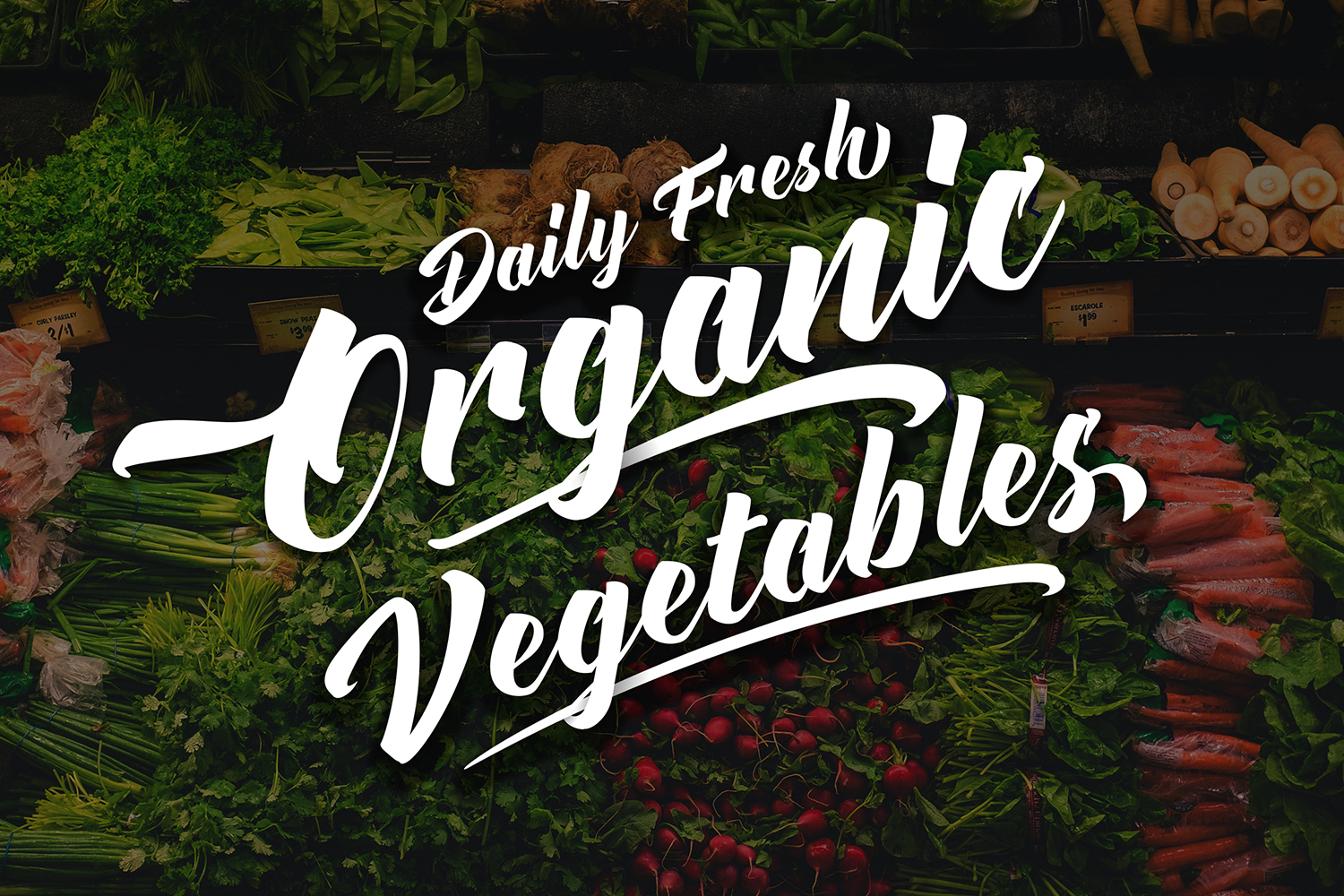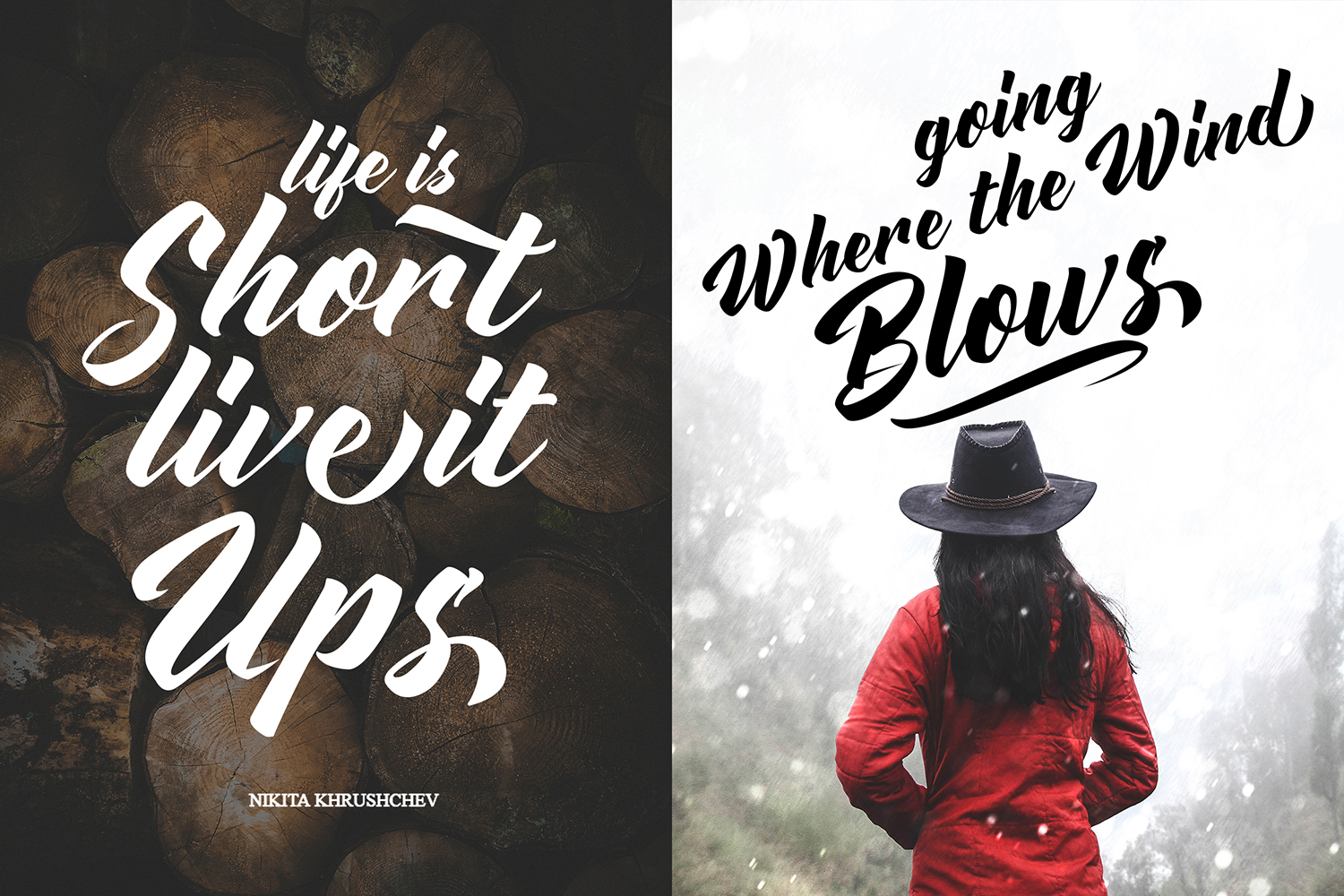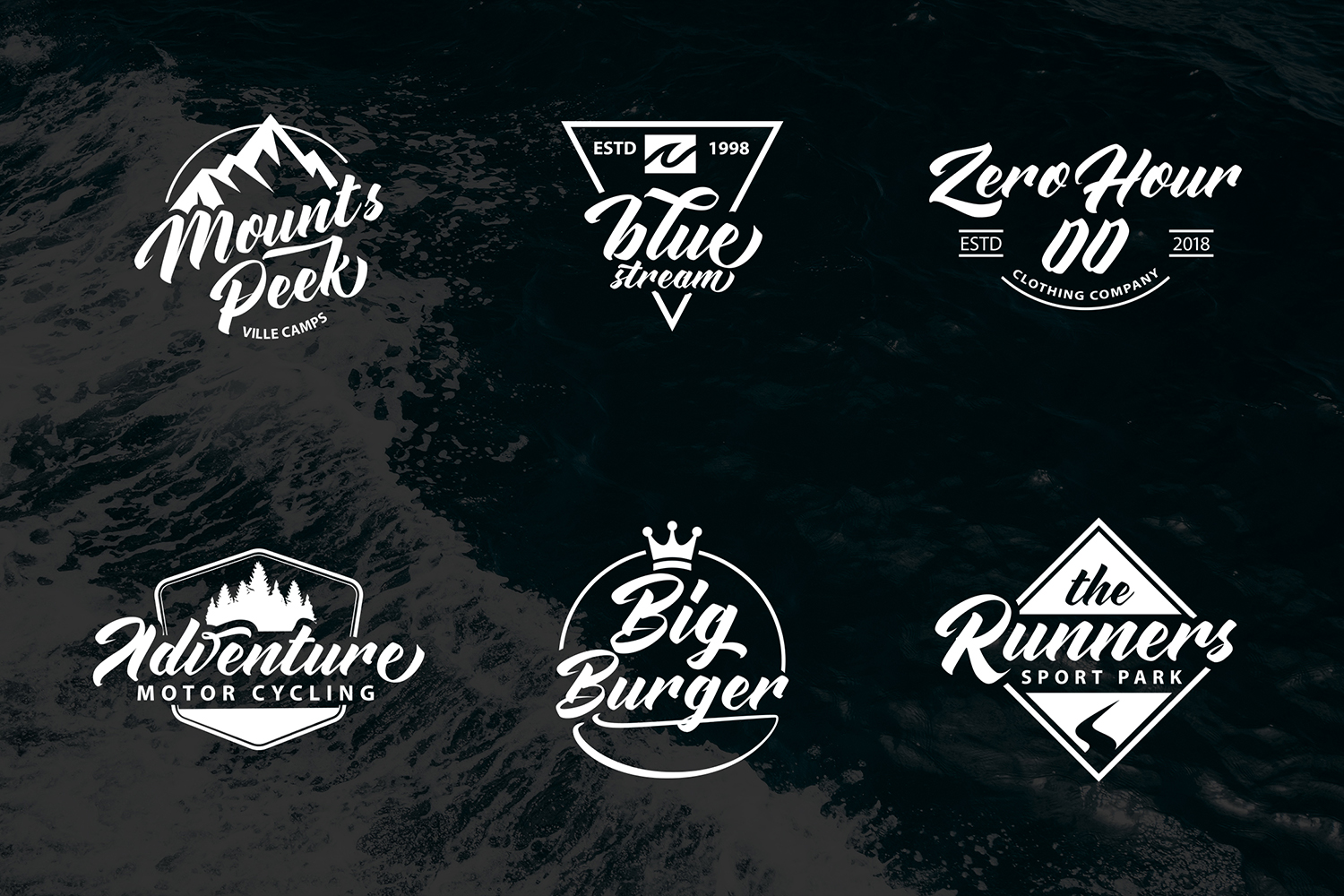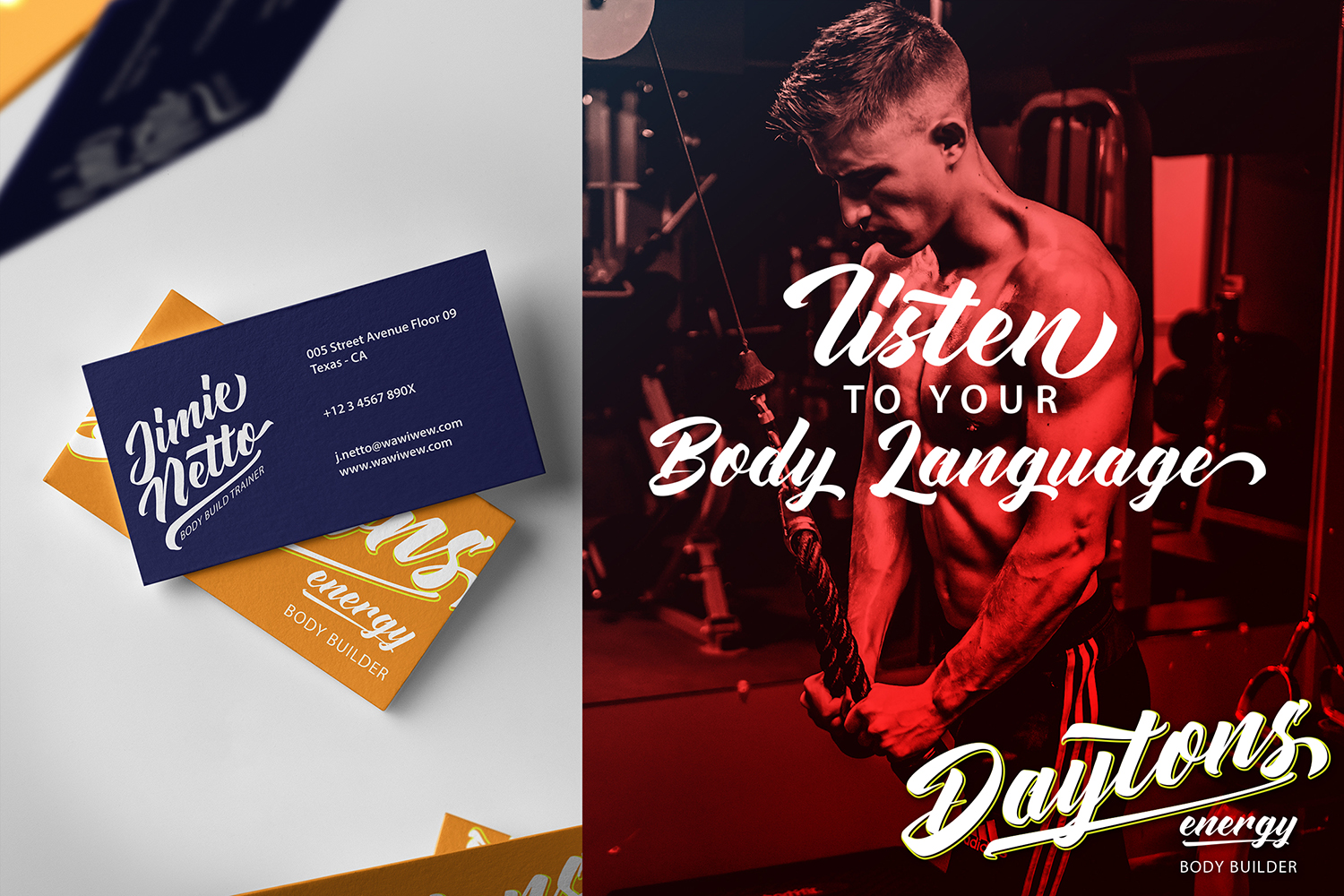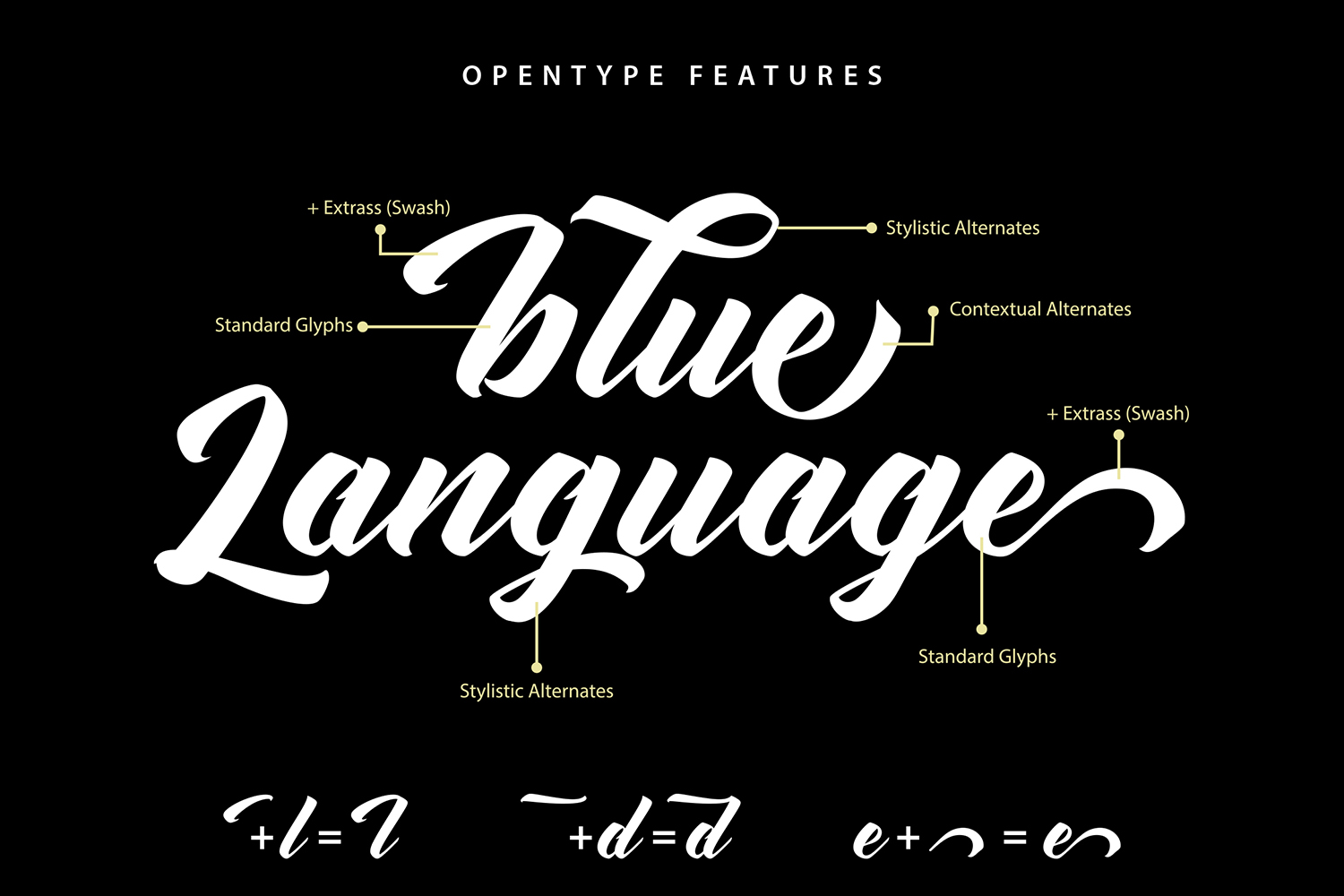
Advections | Brush Cursive Font
**Advections | Brush Script Font** with a calligraphy style, So beautiful on invitation like greeting cards, branding materials, business cards, quotes, posters, and more!
The alternative characters were divided into several Open Type features such as Stylistic Sets, Stylistic Alternates, Contextual Alternate, SWASH and Ligature. The Open Type features can be accessed by using Open Type savvy programs such as Adobe Illustrator, Adobe InDesign, Adobe Photoshop Corel Draw X version, And Microsoft Word. And this Font has given PUA unicode (specially coded fonts). so that all the alternate characters can easily be accessed in full
* Tons of glyphs
* Alternates and Ligatures
* Punctional
* **PUA Encoded Characters** - Fully accessible without additional design software.
* Fonts include **Multilingual Support**